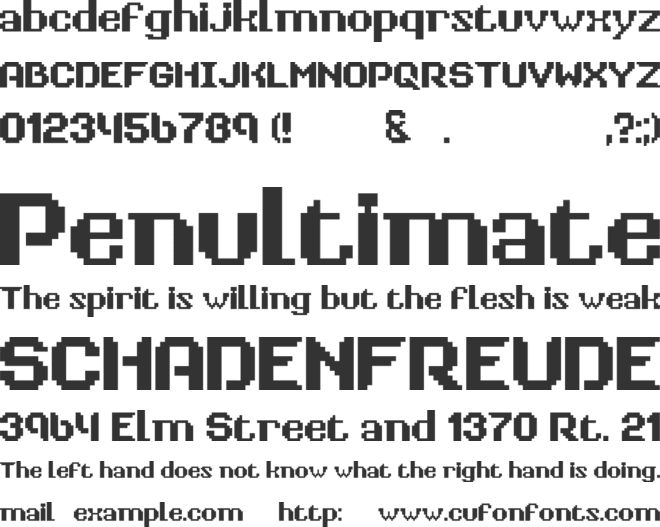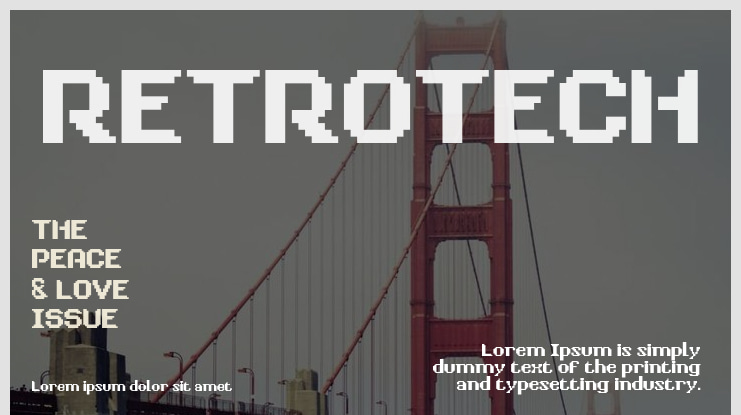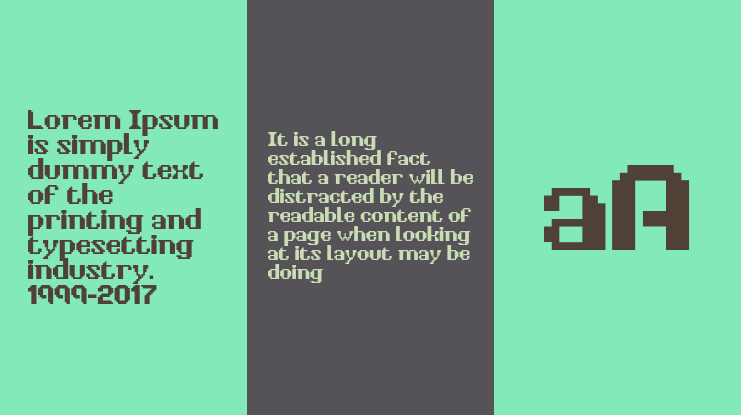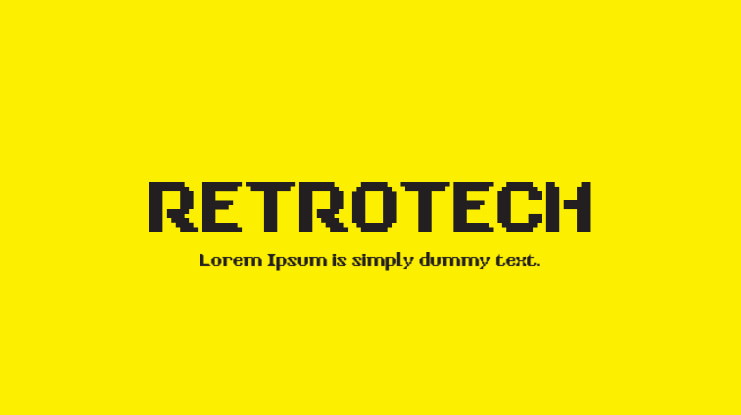
RETROTECH Font
RetroTech is a futuristic font characterized by its bold and pixelated design, making it the perfect choice for promoting gaming equipment and technology. This typeface draws inspiration from both modern typographies and classic pixelated text, aiming to revive pixel fonts and align them with contemporary design standards.